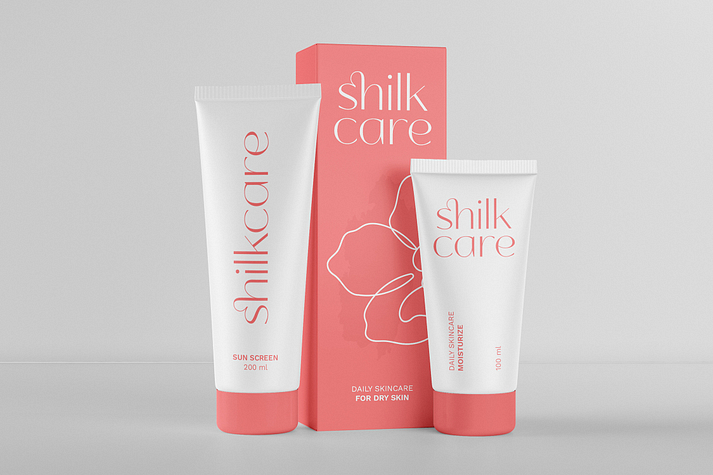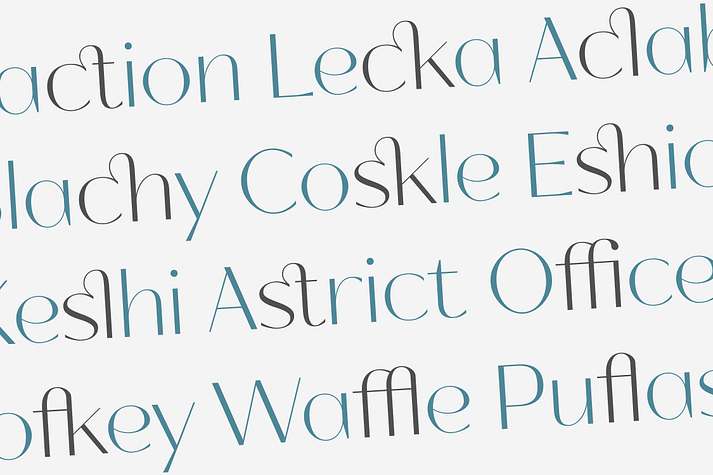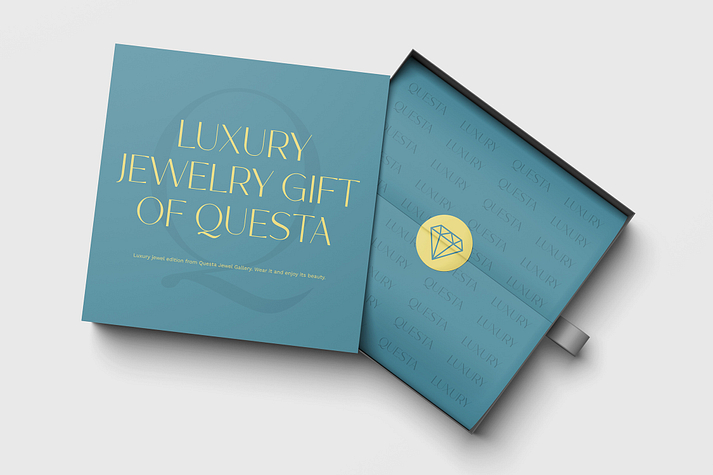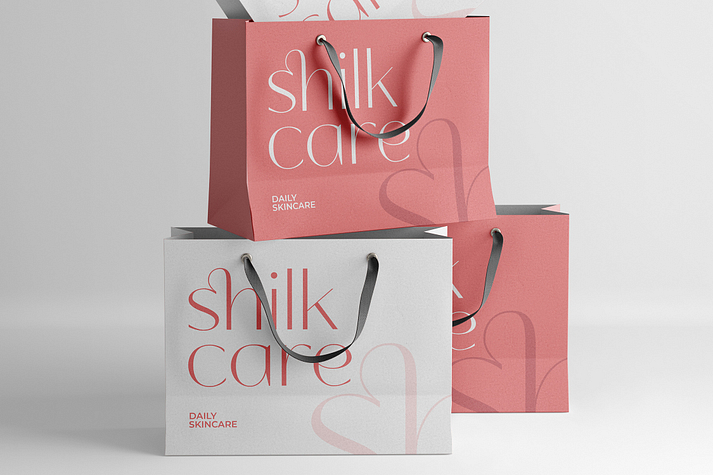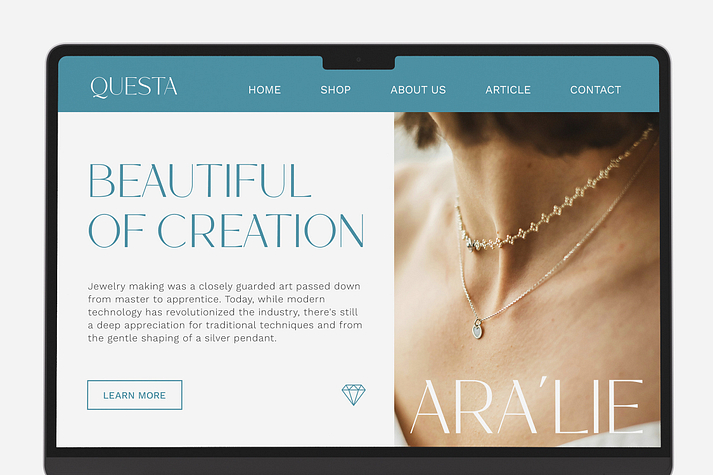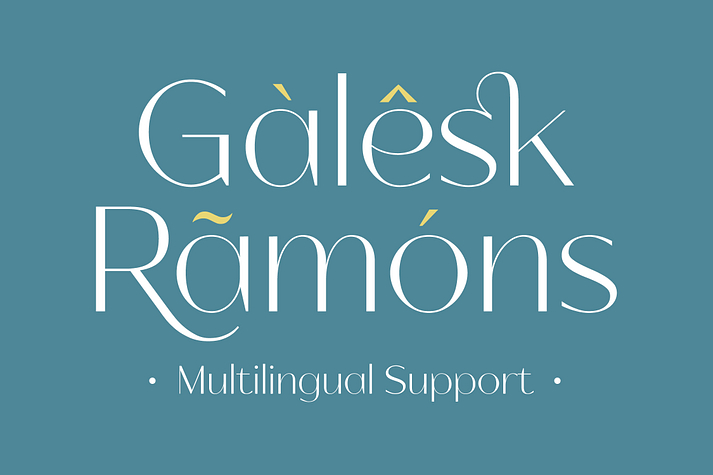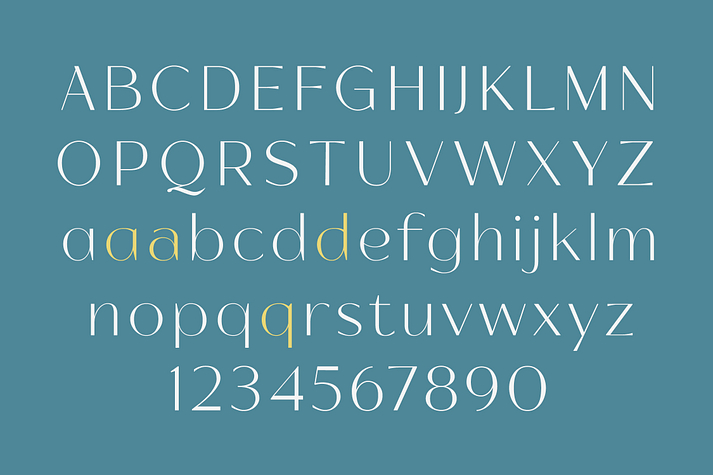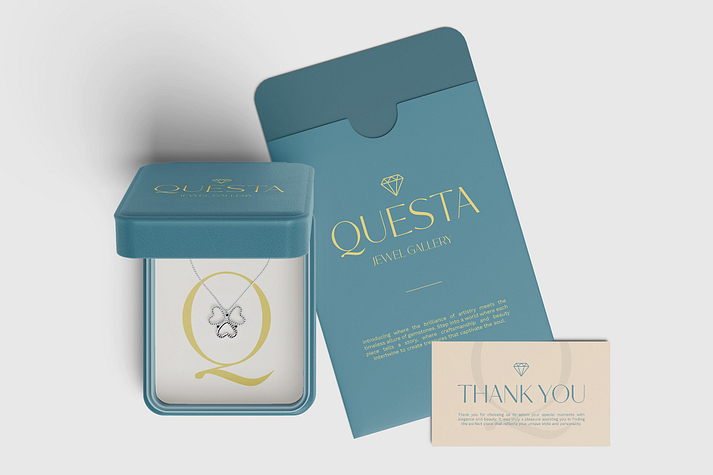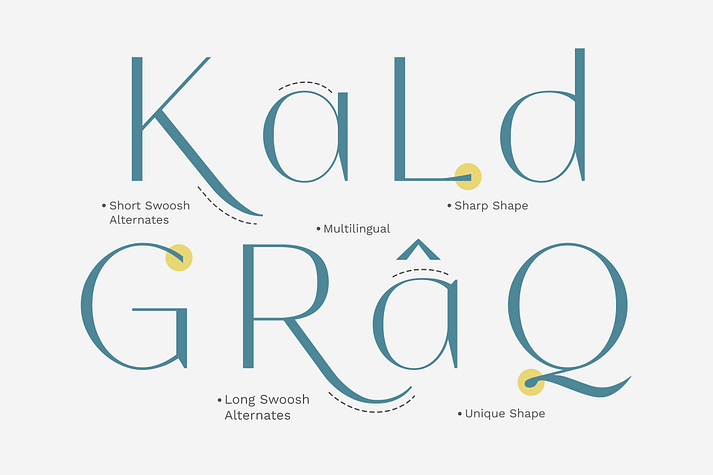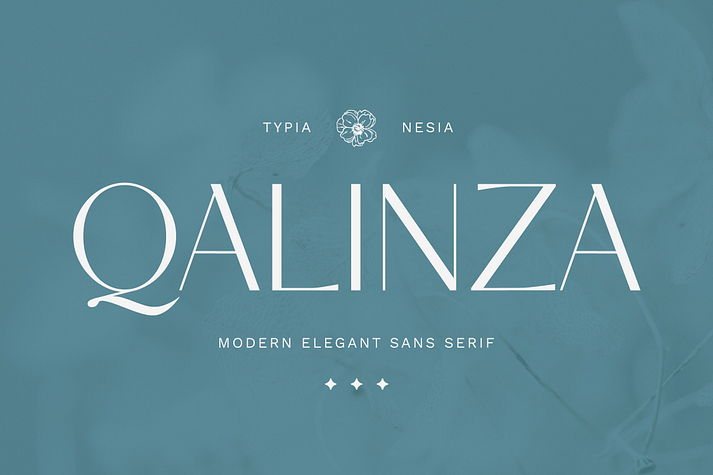
Qalinza
Qalinza is a display sans and sans serif font family published by Typia Nesia.
Qalinza - Modern Elegant Sans Serif Font - Beauty Feminine Luxury Branding
Qalinza embodies modern elegance with its Beauty and sophisticated Sans Serif style. Its clean lines and balanced proportions exude a contemporary vibe, making it suitable for a wide range of design projects. This font is versatile and can be used for various applications such as branding, editorial design, web design, packaging, wedding invitations, and more. Its modern aesthetic lends itself well to both digital and print mediums, providing flexibility for designers. Comes with ligatures, alternates, and comprehensive support for both uppercase and lowercase letters, punctuation marks, and numerals. These features enhance typographic creativity and allow designers to customize their designs with ease. Additionally, multilingual support ensures compatibility with different languages and regions. Crafted with expertise in typography and contemporary design trends, Qalinza reflects a understanding of modern aesthetics and typographic principles. Its Modern Elegant Sans Serif style showcases proficiency in creating fonts that are both visually appealing and functional.